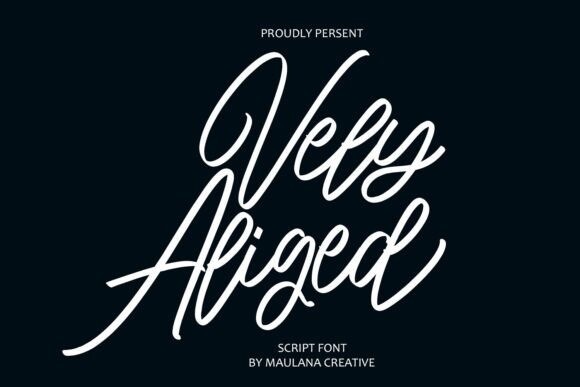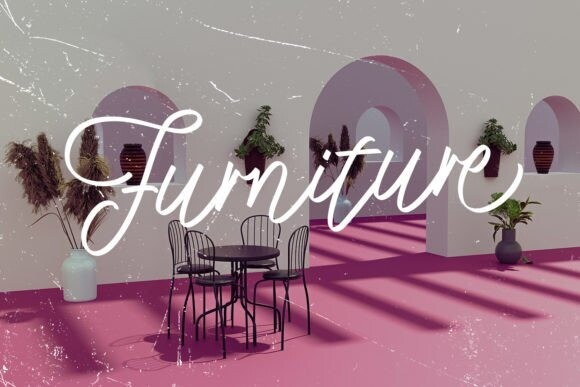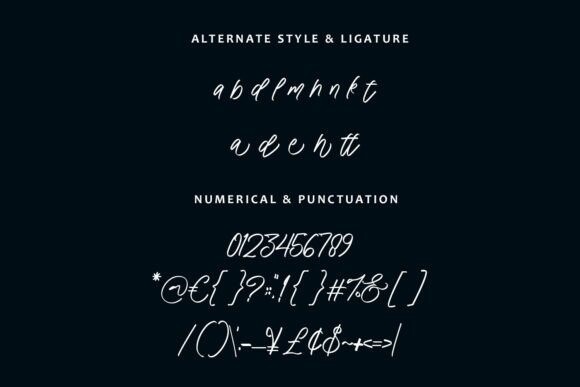
Vely Aliged Font
Vely Aliged script font. This font is good for logo design, Social media, Movie Titles, Books Titles, a short text even a long text letter and good for your secondary text font with signature or script typeface. Make a stunning work with Vely Aliged font.